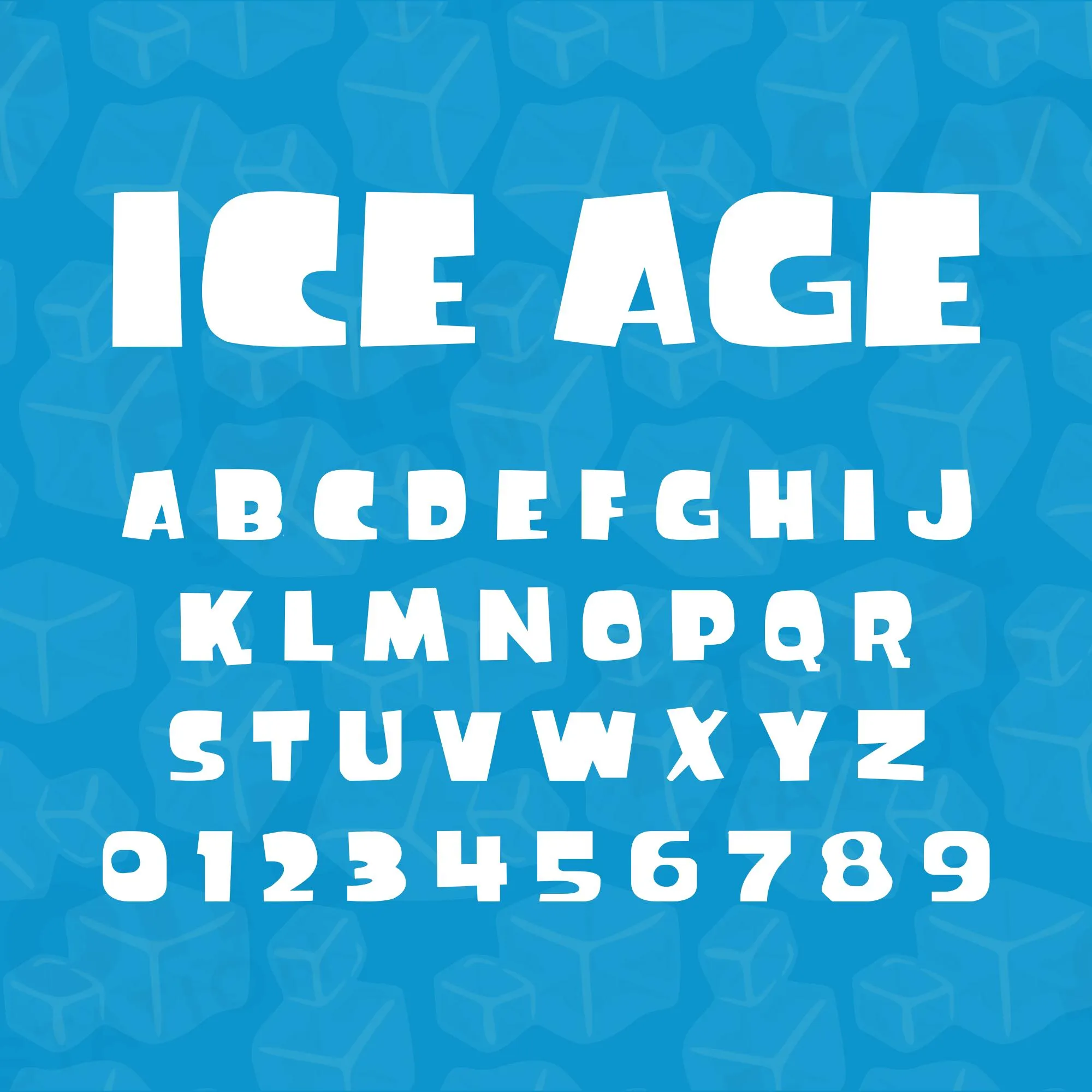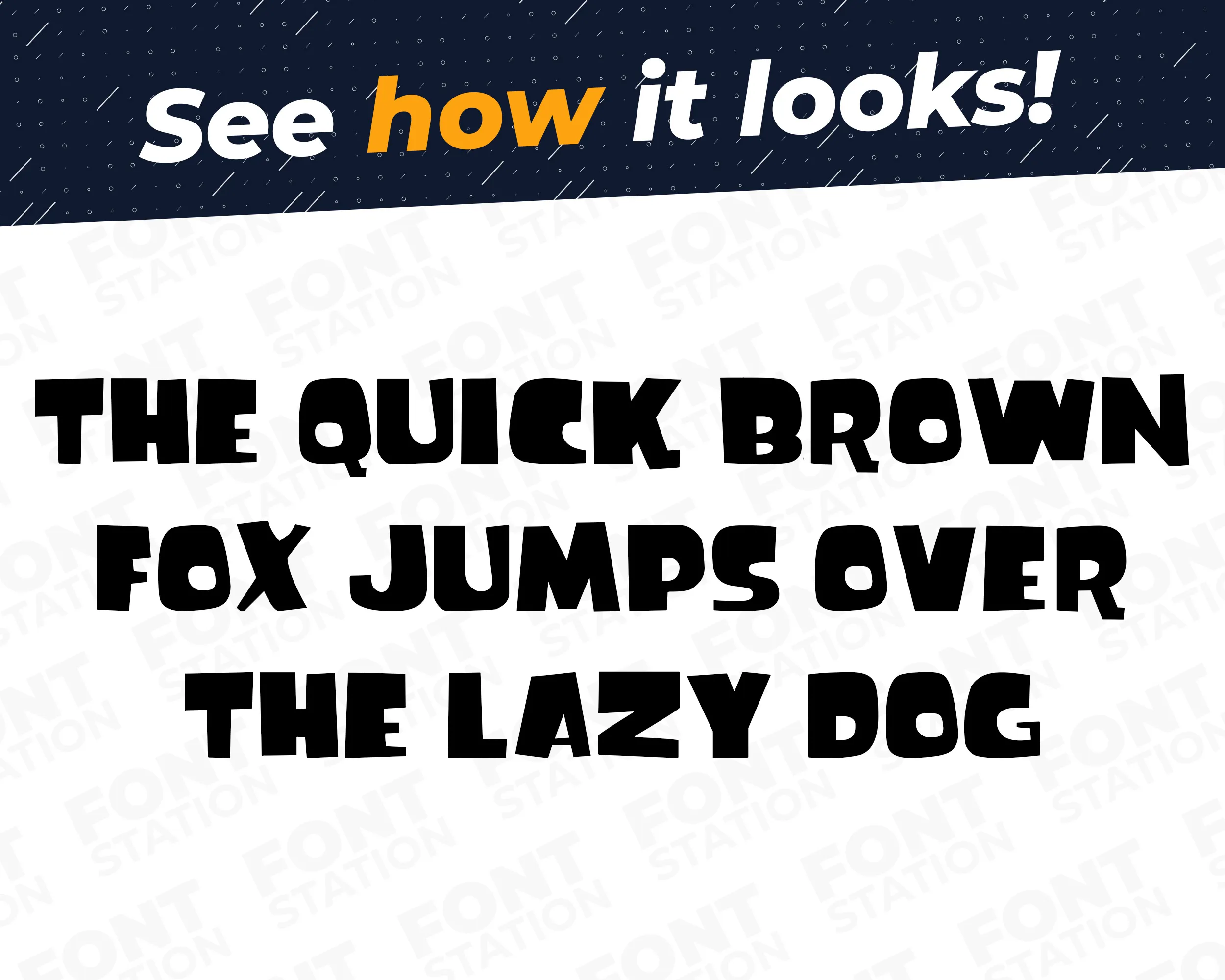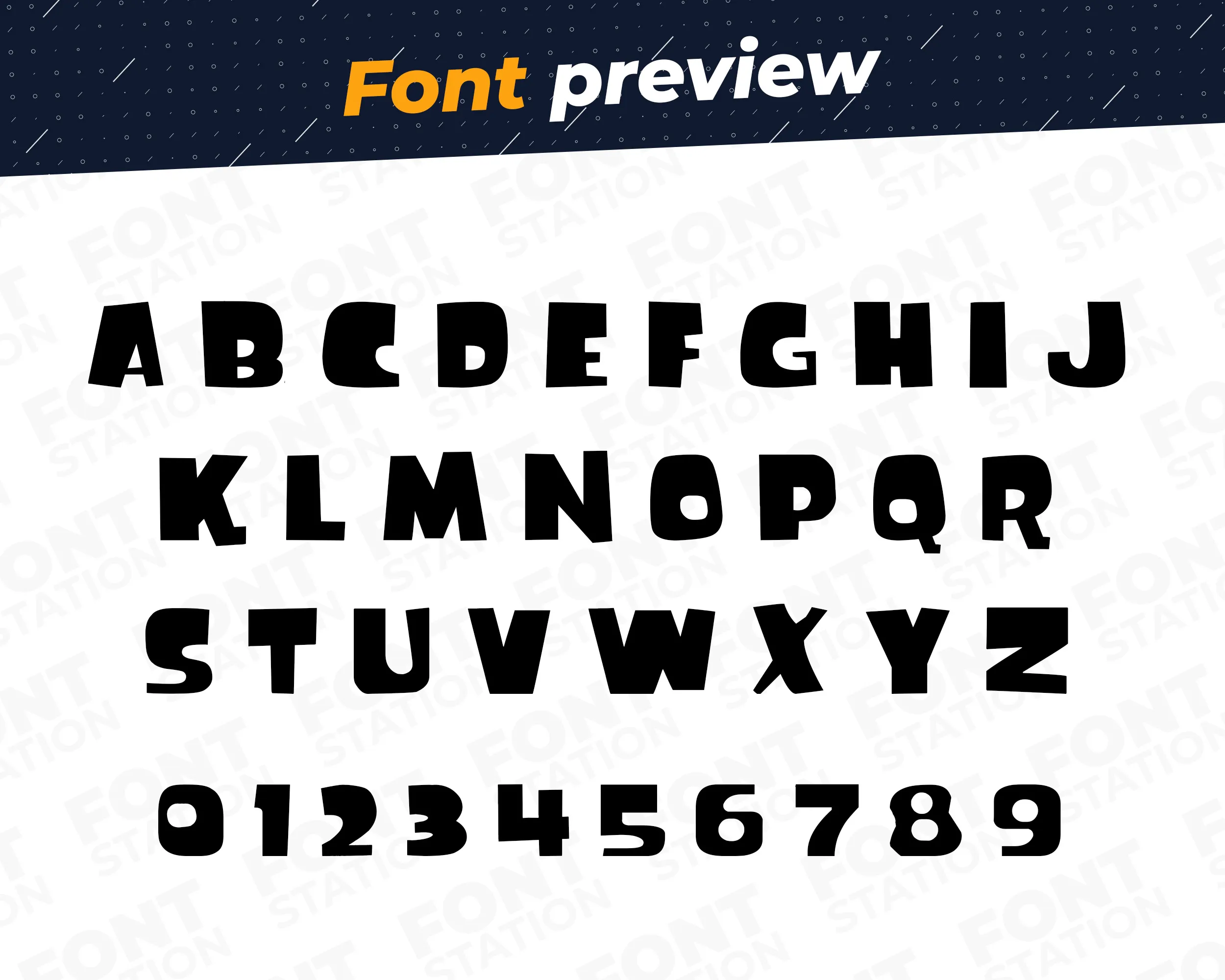
Our Age of Ice typeface, inspired from Ice Age font
Image showing all characters available in the Ice Age Mammoth Sid Animated Movie font created by FontMaze.
Ice Age Font